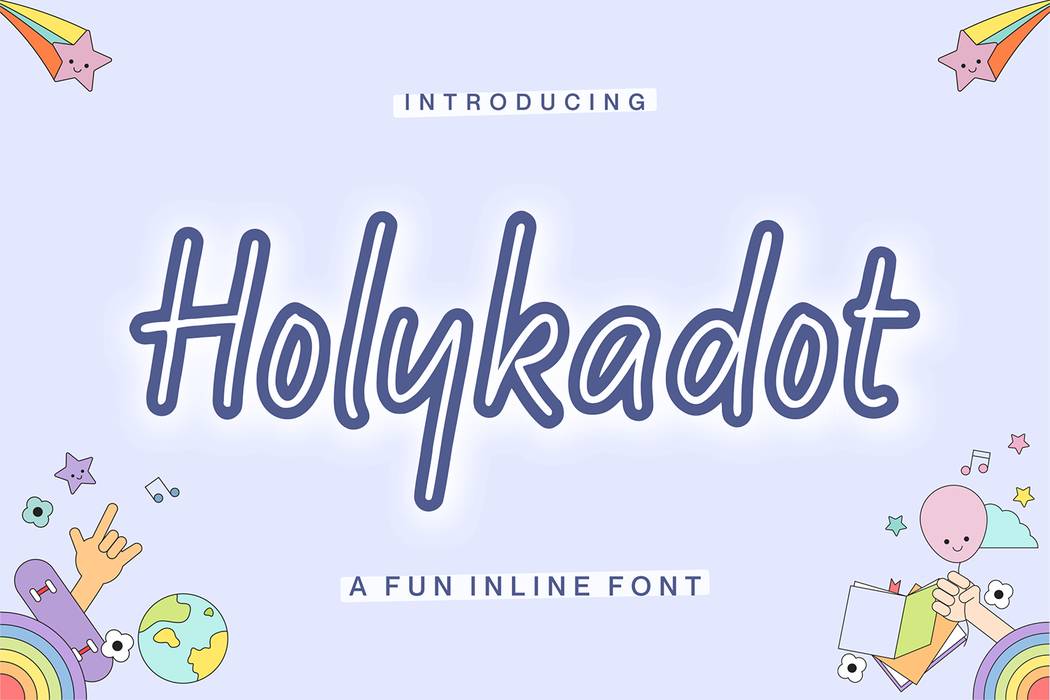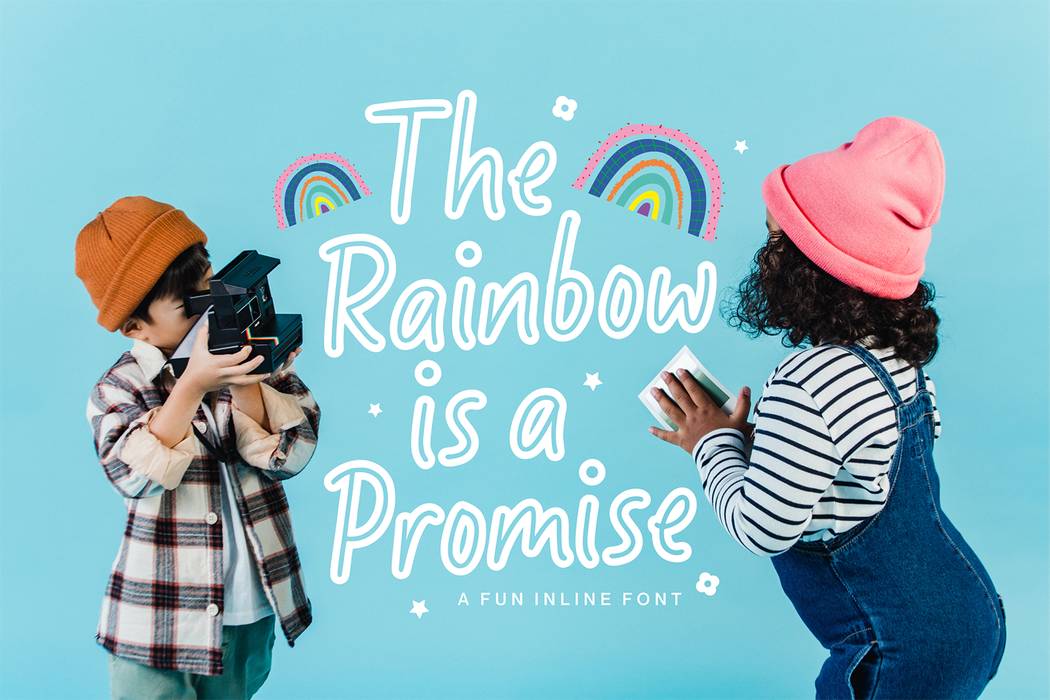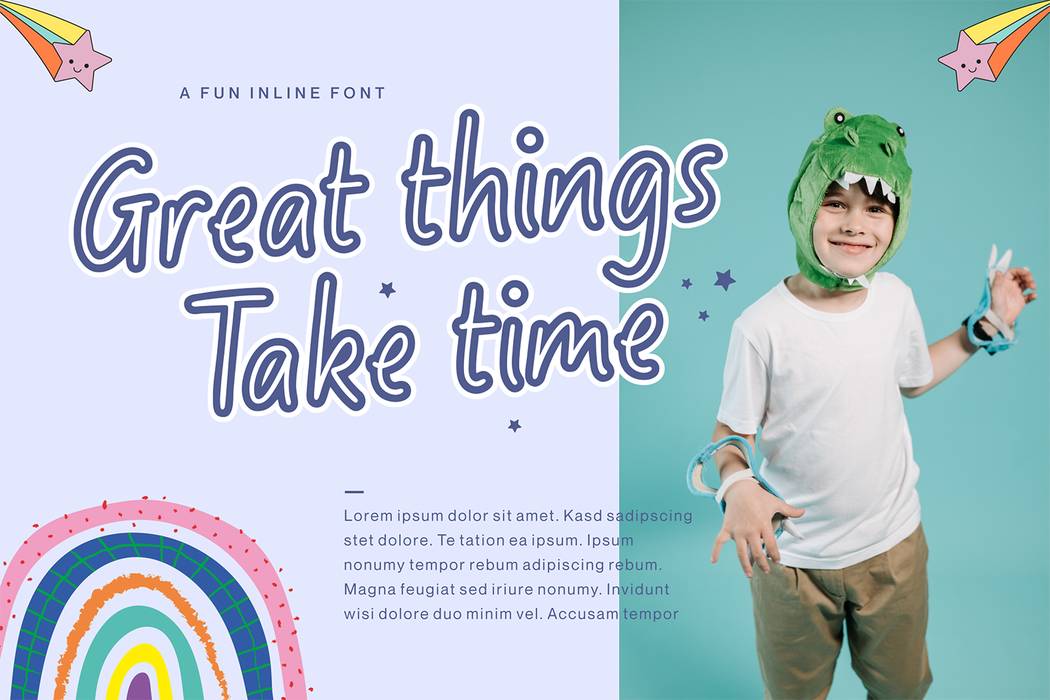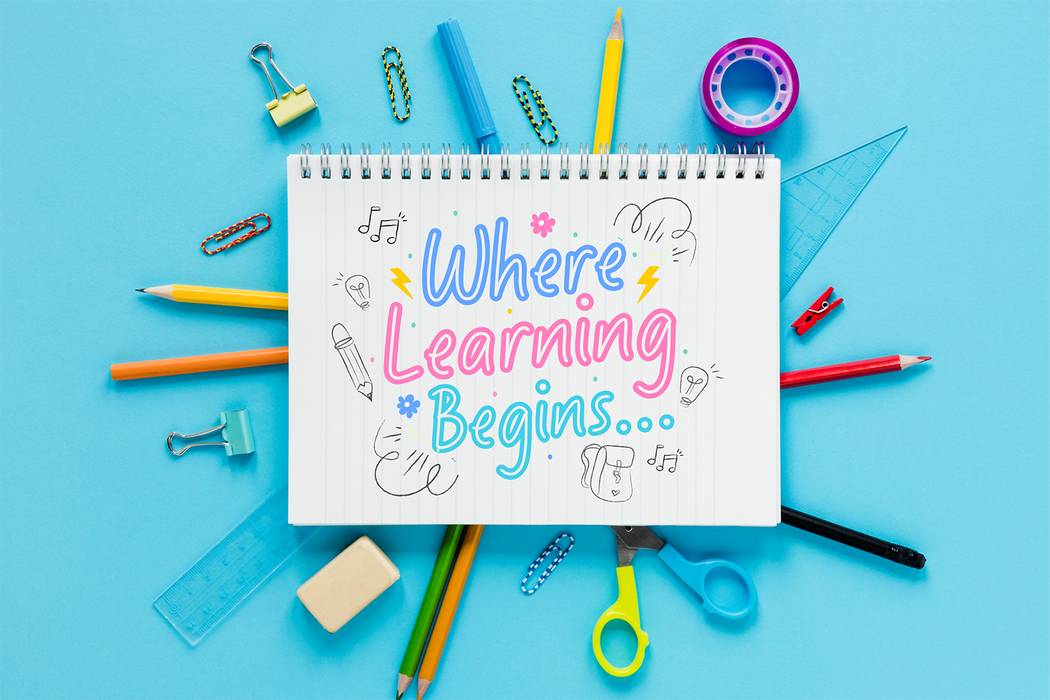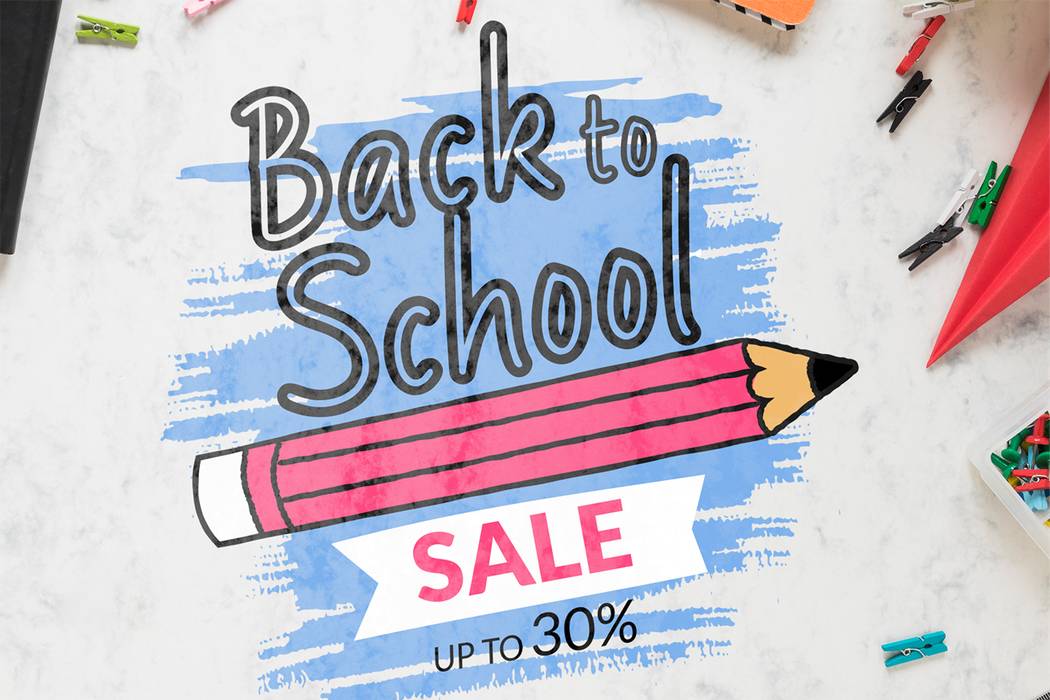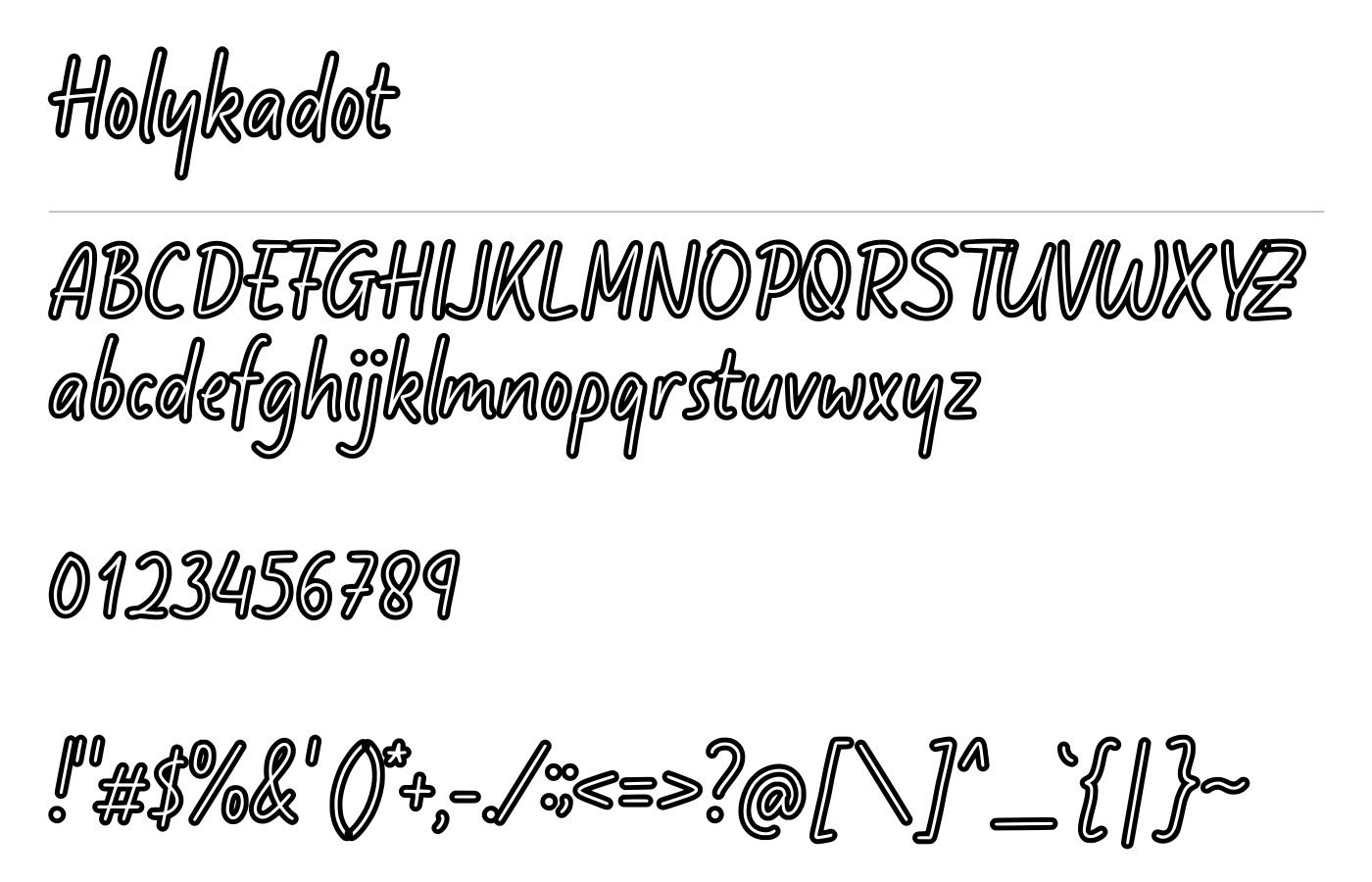
Holykadot is a playful and casual script font that combines a hand-drawn feel with clean, rounded outlines. Its medium weight and upright, slightly condensed letterforms make it approachable and friendly, perfect for creative projects that need a personal touch. This font works well for logos, social media graphics, and informal branding where a lively, youthful vibe is desired.
Holykadot Font
About Holykadot Font